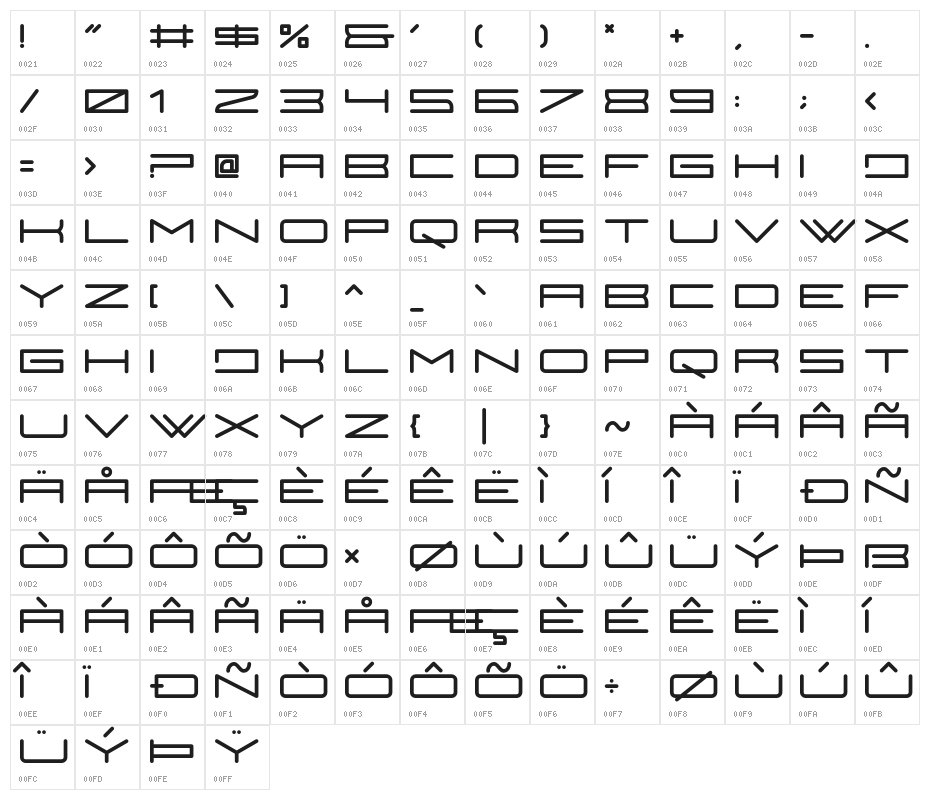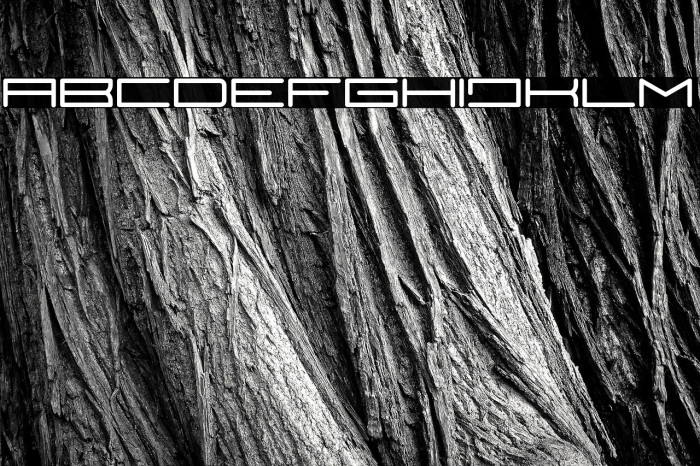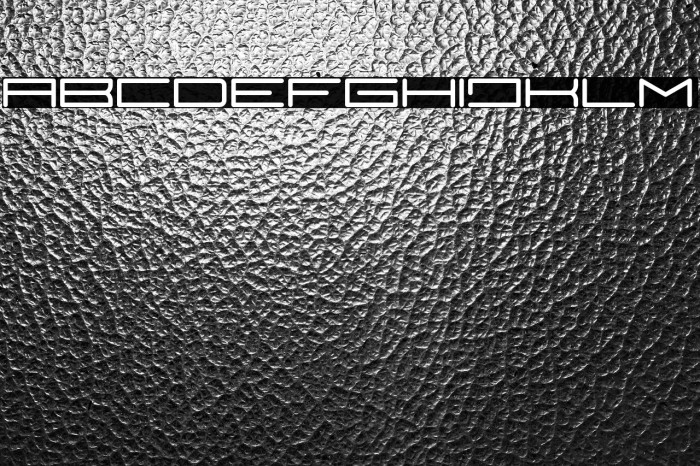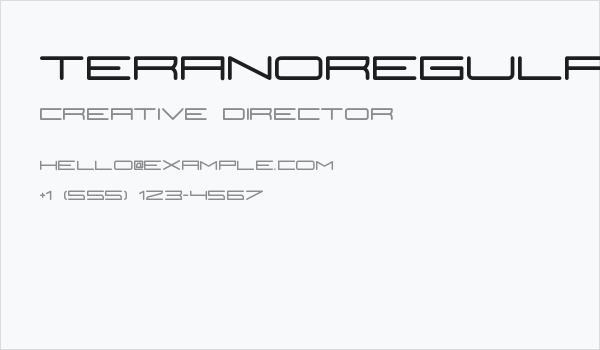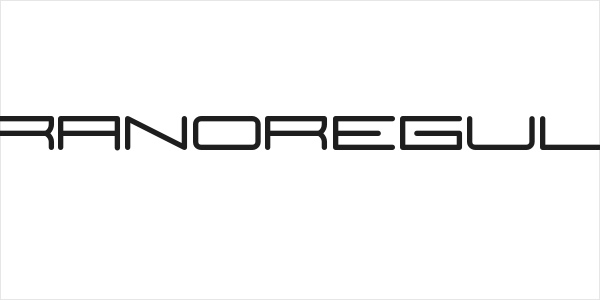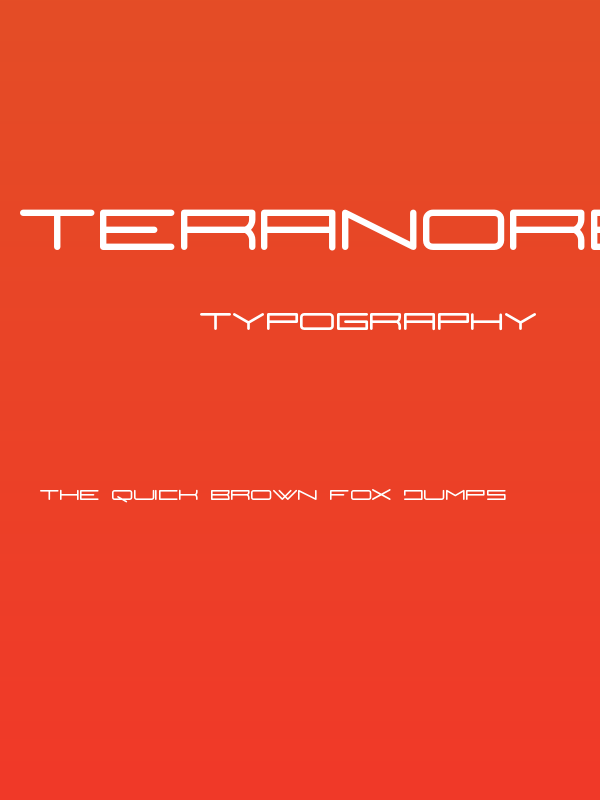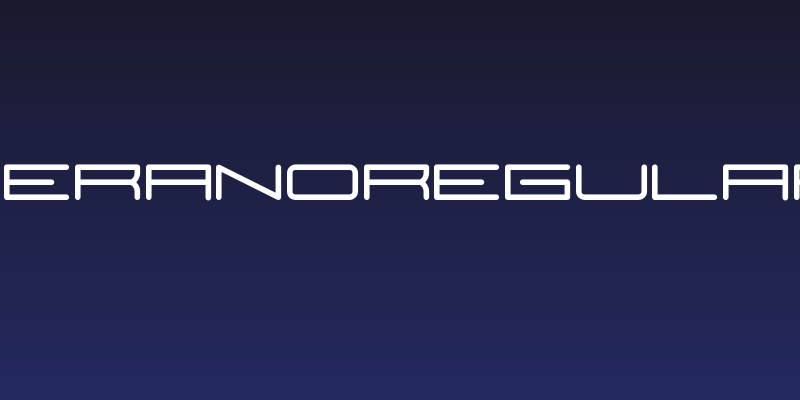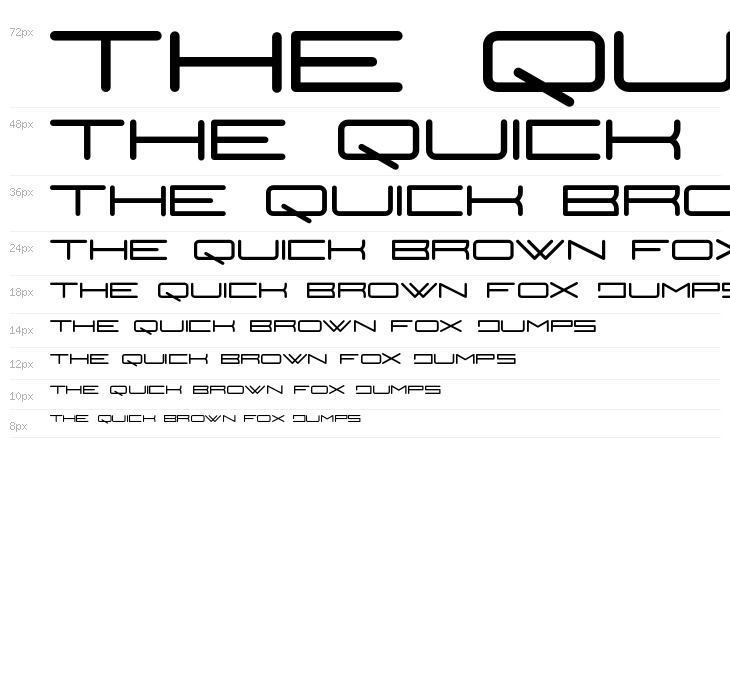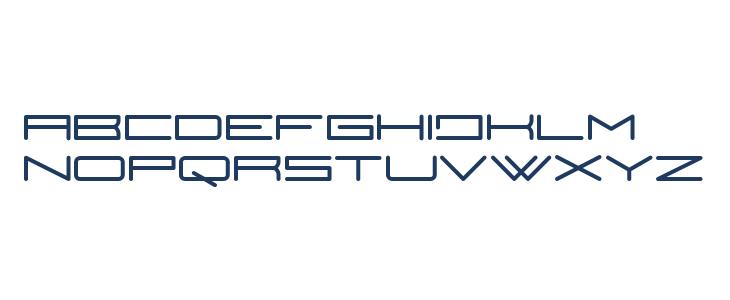
TeranoRegular Font
TeranoRegular Description
This font features a futuristic and geometric design, characterized by its clean lines and angular shapes. The uppercase and lowercase letters maintain a consistent structure, with a focus on symmetry and balance. The numerals and special characters complement the overall aesthetic, providing a cohesive look. The font's design is minimalistic yet bold, making it suitable for modern and tech-oriented projects.
| Use Case | Headlines, Logos, Digital Interfaces |
| Proposed Projects | Ideal for technology branding, sci-fi themed designs, modern advertising, and digital interfaces. |